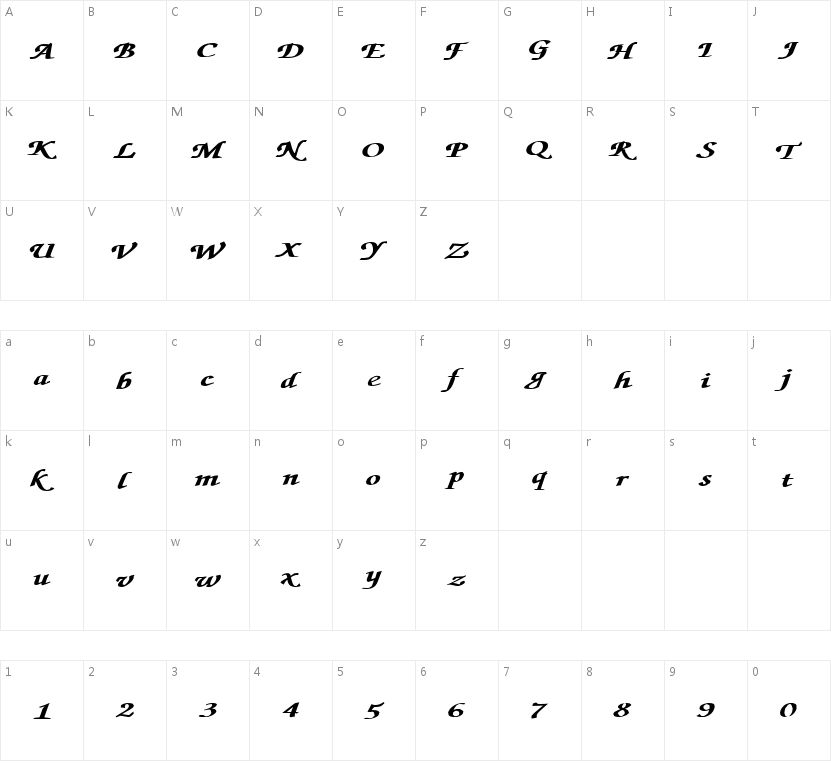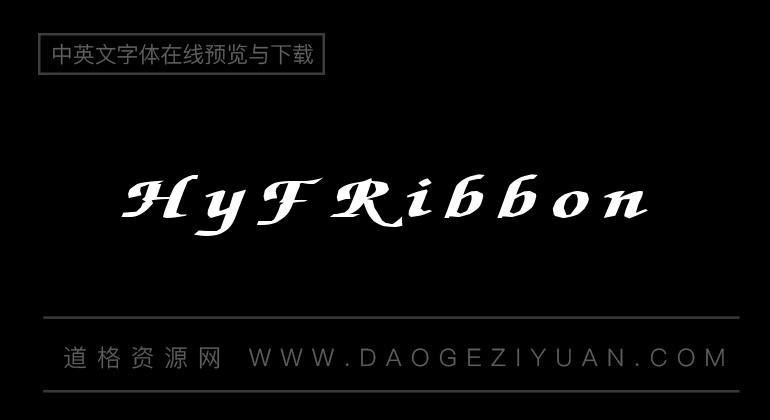
HyFRibbon font is a handwriting-based design style with beautiful fluidity and unique personalization. It consists of a series of lines and curves, full of vivid feeling and vitality. The strokes of the HyFRibbon font are moderate in thickness and clear, making it easy to read and identify. The entire font style is simple and bold, and can be widely used in advertising design, graphic design, packaging design and other fields. The font comes in a variety of colors and styles and can be customized to suit different design needs. In short, the HyFRibbon font is both artistic and practical, and it is an excellent font design work.Content introduction
HyFRibbon is a very good handwriting art font, with a good visual sense, suitable for cultural propaganda design, commercial brand advertising and product packaging design and personalized text typesetting and other more scenes.